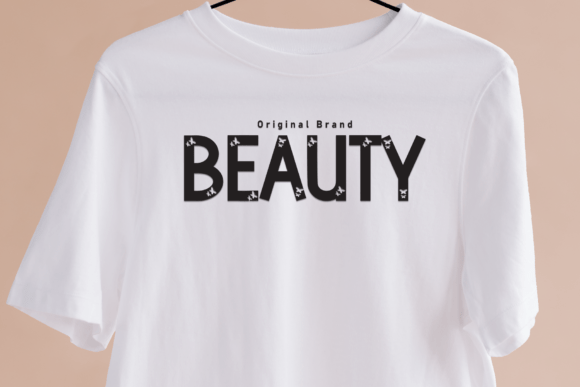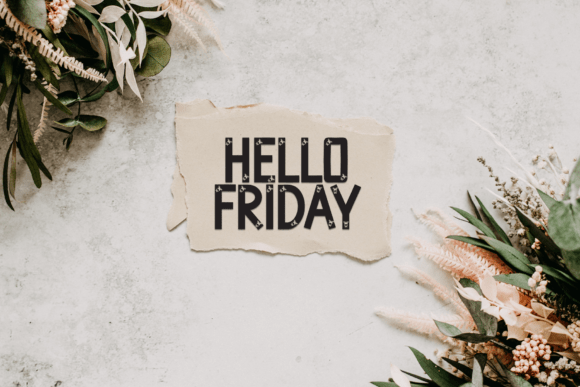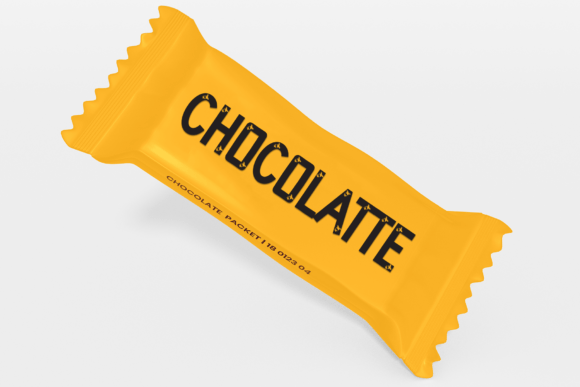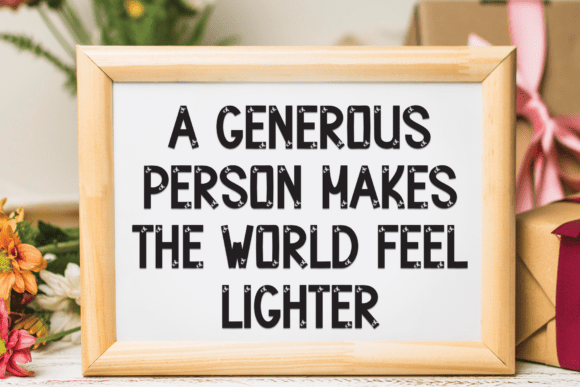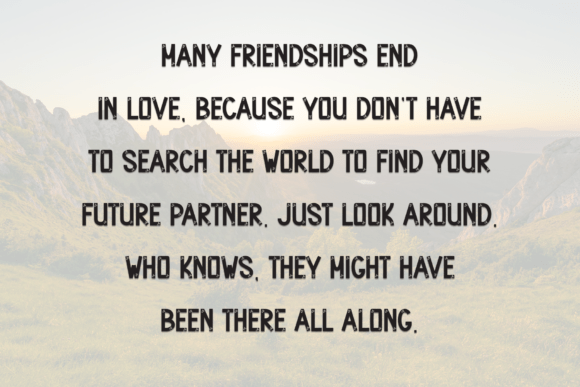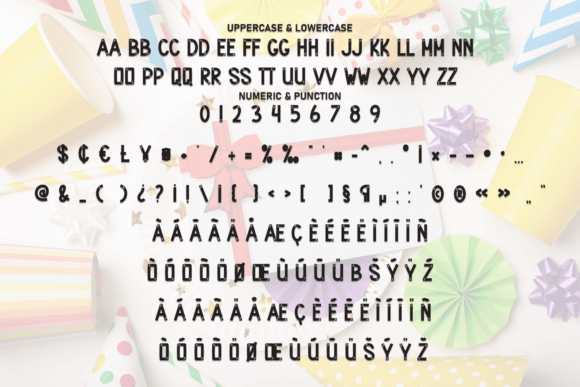
Introducing Gift Card Font: The Perfect Blend of Warmth and Charm
Are you looking for a font that can add a touch of warmth and personality to your designs? Look no further than Gift Card Font, a beautiful handwritten display typeface that is sure to captivate your audience. With its friendly and charming vibe, this font is perfect for creating dreamy wedding invitations, heartwarming greeting cards, and artistic expressions that demand a lively dose of cheer.
The Characteristics of Gift Card Font
Gift Card Font is a carefully crafted typeface that boasts a unique blend of elegance and playfulness. Its handwritten style gives it a personal and approachable feel, making it perfect for designs that require a touch of warmth and personality. The font’s characters are meticulously designed to radiate friendly warmth and charm, making it an excellent choice for a wide range of design projects.
Gift Card Font is an incredibly versatile typeface that can be used in a variety of design projects. Whether you’re creating wedding invitations, greeting cards, or social media graphics, this font is sure to add a touch of magic to your designs. Its lively and cheerful vibe makes it perfect for:
- Dreamy wedding invitations and save-the-date cards
- Heartwarming greeting cards for special occasions
- Artistic expressions, such as illustrations and paintings
- Branding and packaging designs
Why Choose Gift Card Font?
So, why should you choose Gift Card Font for your design projects? Here are just a few reasons:
- Unique and eye-catching: Gift Card Font is a one-of-a-kind typeface that is sure to grab the attention of your audience.
- Warm and inviting: The font’s friendly and charming vibe makes it perfect for designs that require a touch of warmth and personality.
- Highly versatile: Gift Card Font can be used in a wide range of design projects, from wedding invitations to social media graphics.
- Easy to read: Despite its decorative nature, Gift Card Font is highly legible and easy to read, making it perfect for designs that require a clear and concise message.
Tips for Using Gift Card Font
To get the most out of Gift Card Font, here are a few tips to keep in mind:
- Use it sparingly: While Gift Card Font is a beautiful typeface, it can be overwhelming if used excessively. Use it sparingly to add a touch of elegance and personality to your designs.
- Pair it with complementary fonts: Gift Card Font pairs well with a variety of fonts, including serif and sans-serif typefaces. Experiment with different font combinations to find the perfect pairing for your design.
- Experiment with colors: Gift Card Font looks great in a variety of colors, from bold and bright to soft and pastel. Experiment with different colors to find the perfect hue for your design.
Gift Card Font is a beautiful and versatile typeface that is sure to add a touch of warmth and personality to your designs. With its unique blend of elegance and playfulness, this font is perfect for a wide range of design projects, from wedding invitations to social media graphics. Whether you’re a designer, craft, or DIY enthusiast, Gift Card Font is an excellent choice for anyone looking to add a touch of magic to their creations.